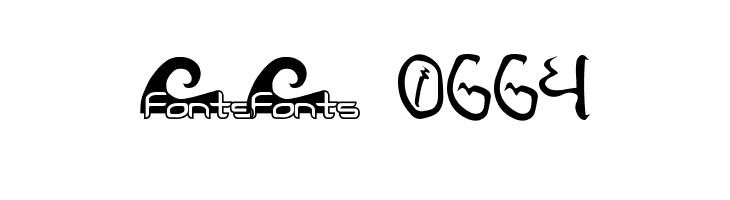
Shining Monday Шрифта
- Шрифта: Shining Monday
( Fonts by Caffeen Fonts - www.swank.ca/caffeen/fonts/ )
A decorative and artistic font with wavy, hand-drawn characteristics.